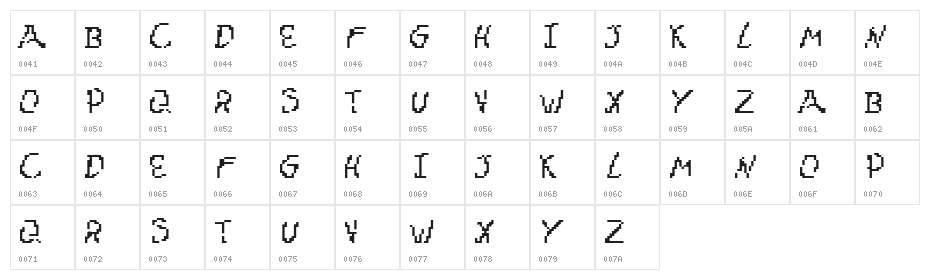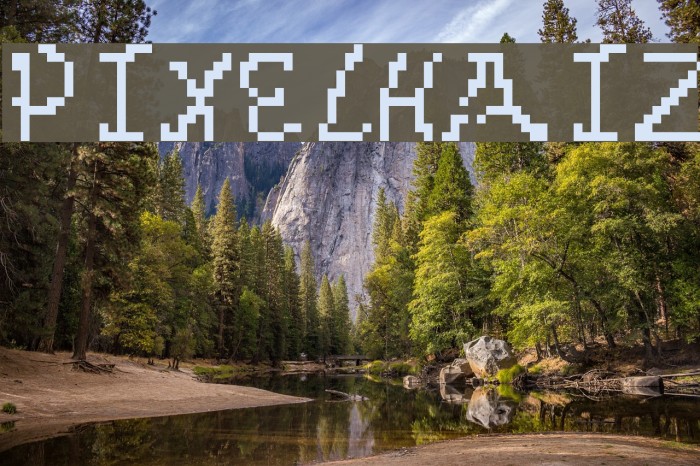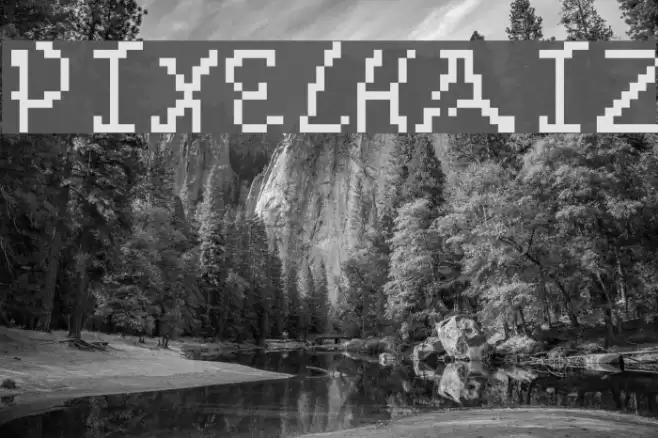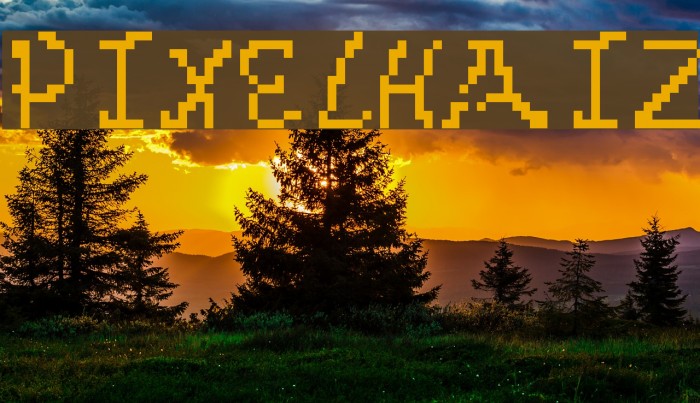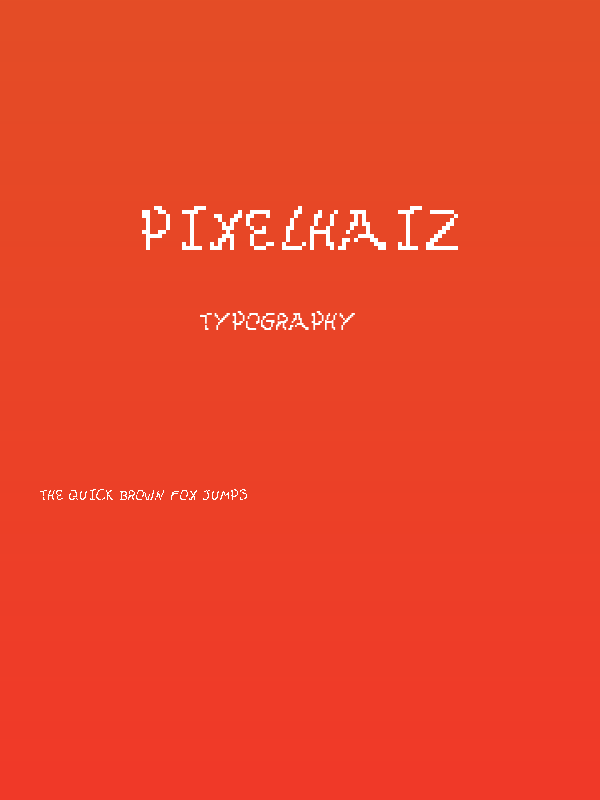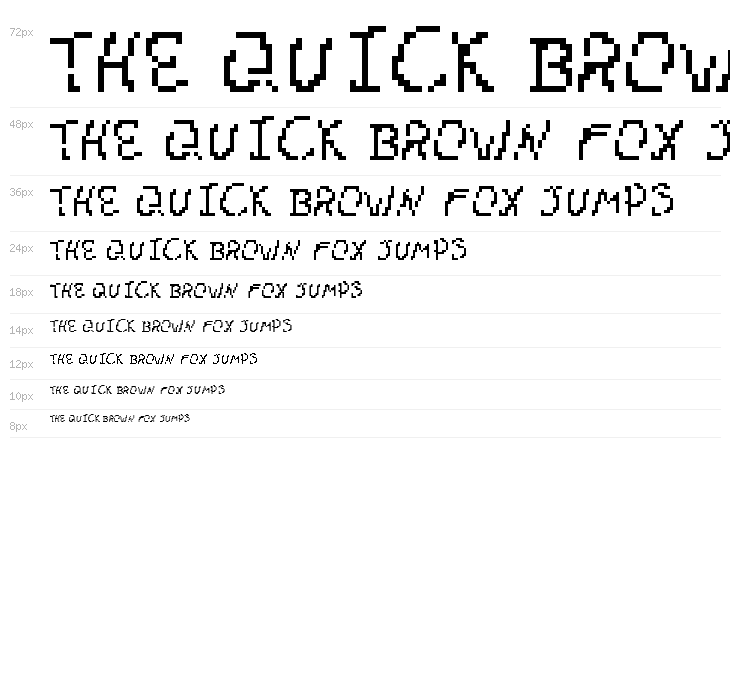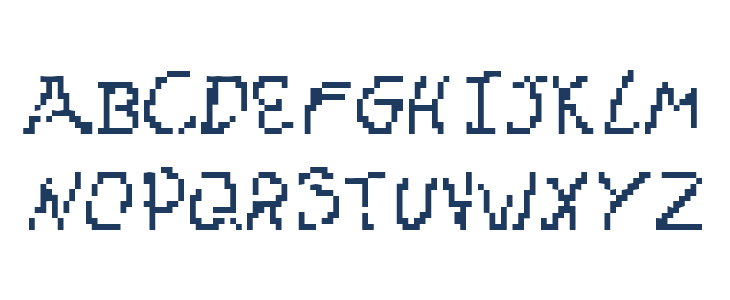
Pixelhaiz Font
Pixelhaiz Description
This font features a pixelated, blocky design reminiscent of early digital graphics and video games. Each character is constructed with a grid-like precision, giving it a distinctly retro and nostalgic feel. The uppercase and lowercase letters maintain a consistent height, emphasizing uniformity and clarity. The numbers and special characters follow the same pixelated style, ensuring a cohesive look across all glyphs. This font is ideal for projects that aim to capture the essence of 8-bit or 16-bit digital aesthetics, making it perfect for retro-themed designs or video game projects.
| Use Case | Logos, Headlines, Digital Art |
| Proposed Projects | Ideal for retro video games, digital art, and nostalgic design projects. |